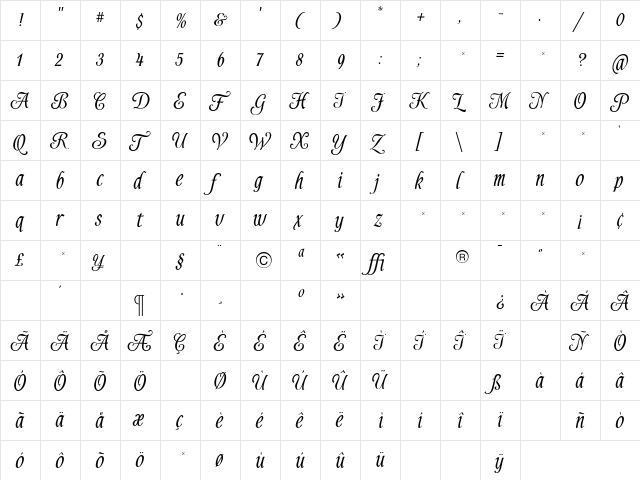
Alys Script Bold Regular
Design Context for Alys Script Bold Typeface
Alys Script Bold brings a calligraphic fluidity to the page — its connecting strokes and expressive curves give it an unmistakably human quality. Its bold stroke weight gives it real presence on the page.
Font Pairing: Combine Alys Script Bold with a simple geometric sans for maximum contrast — the tension between flowing curves and clean structure is a classic typographic pairing.
Pro Tip: Use Alys Script Bold for short runs of text — names, titles, or taglines. Extended body copy in script faces tires the eye quickly.